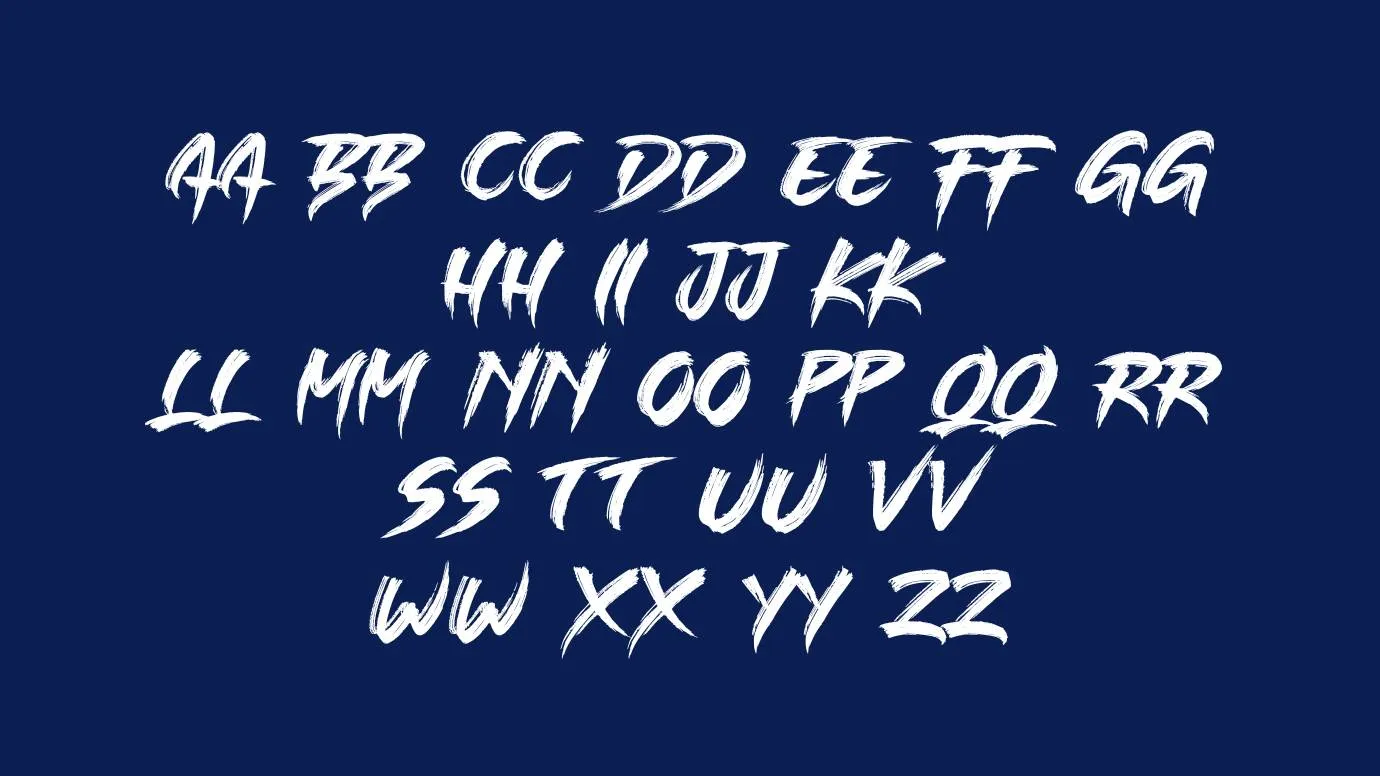
Single Fighter Font is a bold and dynamic typeface inspired by combat sports and action themes. Its sharp edges and powerful strokes give it an intense, energetic appearance.
You can also use it for pairing it with other fonts such as gorock brush to give a more elegant and amazing look to your projects. The writing style followed by this font is Italic.
| Name | Single Fighter Font |
| Designer | Rangga Subekti |
| Foundry | Subectype |
| Type | Brush |